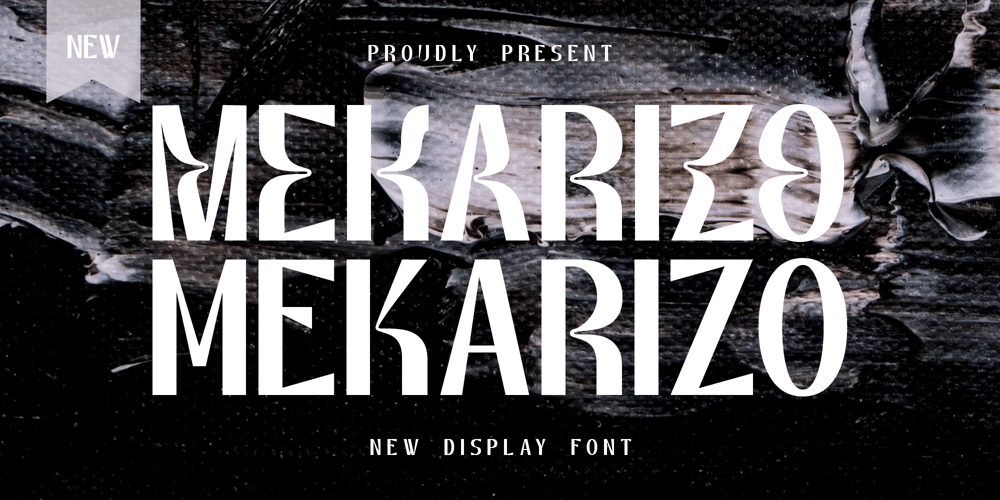
Mekarizo Font Family was designed by Zeenesia Studio and published by HunaizaAljahsy. Mekarizo contains 1 styles and family package options. Mekarizo is a an elegant and smooth combine typeface regular and italic serif font.It’s a very versatile font that works great in large. Stylistic Alternate and Ligature makes your project will be awesome.Mekarizo Perfect for editorial projects, Logo design, web font, branding, product packaging, magazine , or simply as a stylish text overlay to any background image.This font is PUA encoded, which means you can access all of the glyphs and swashes with ease!